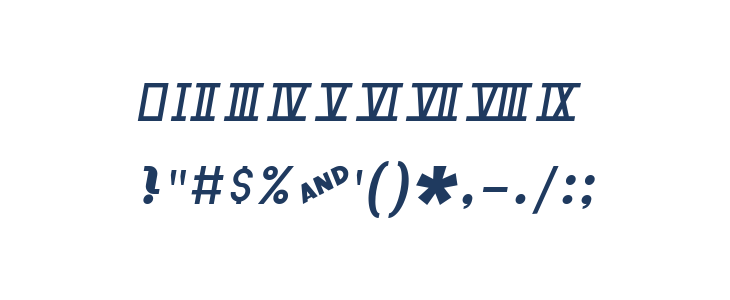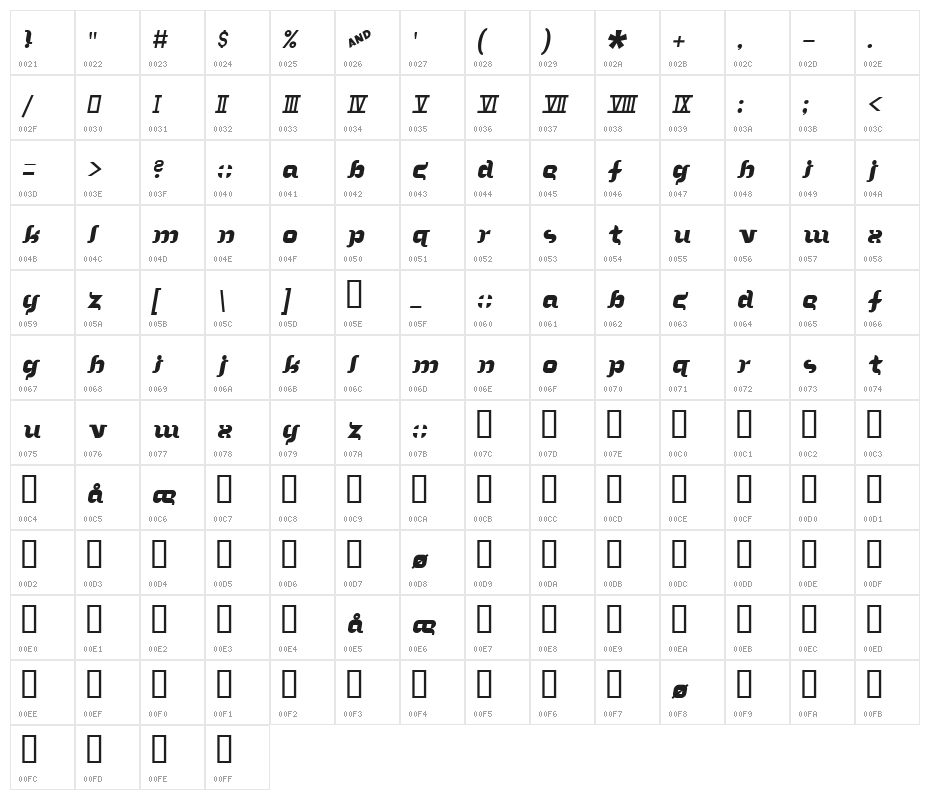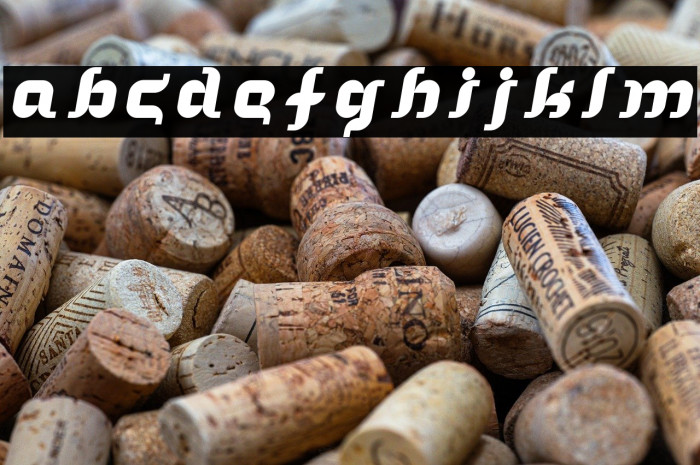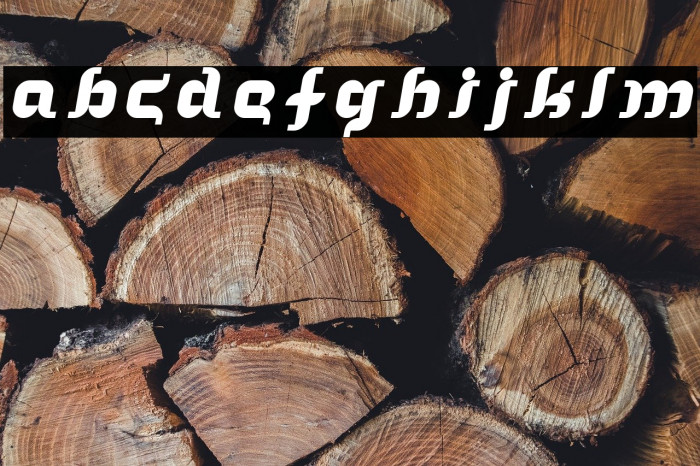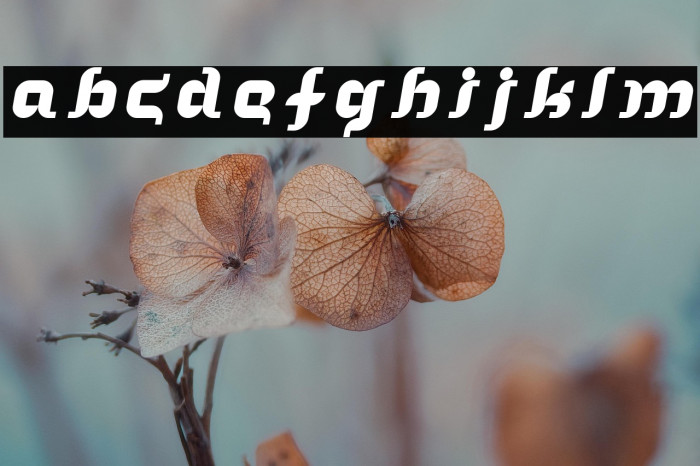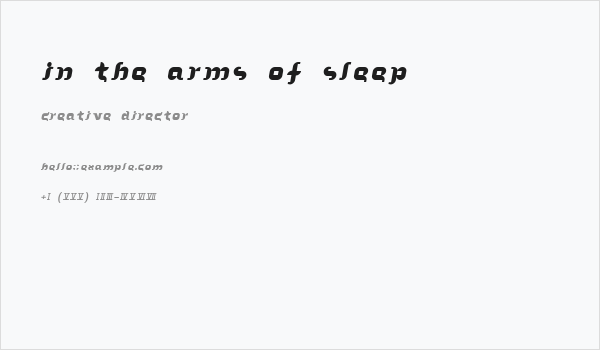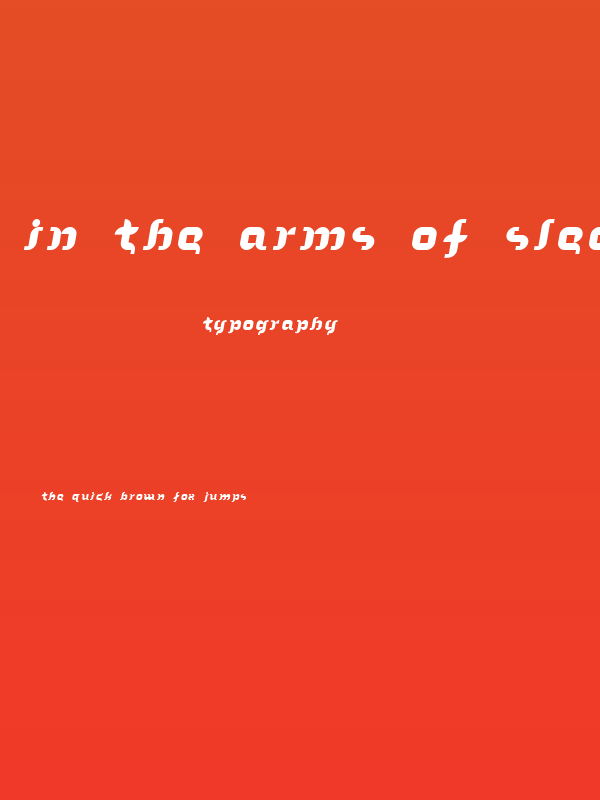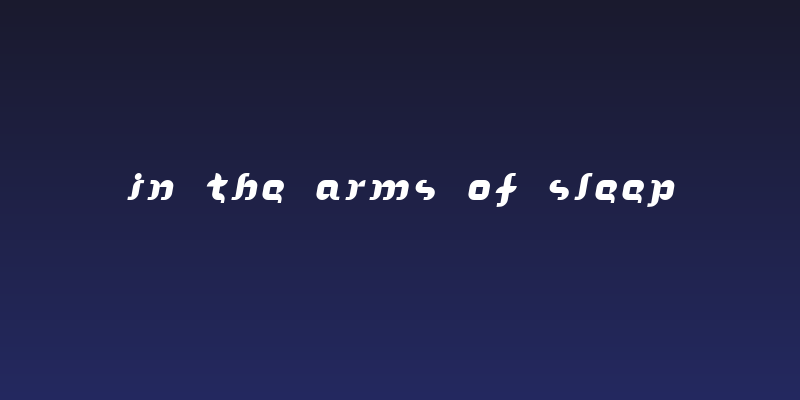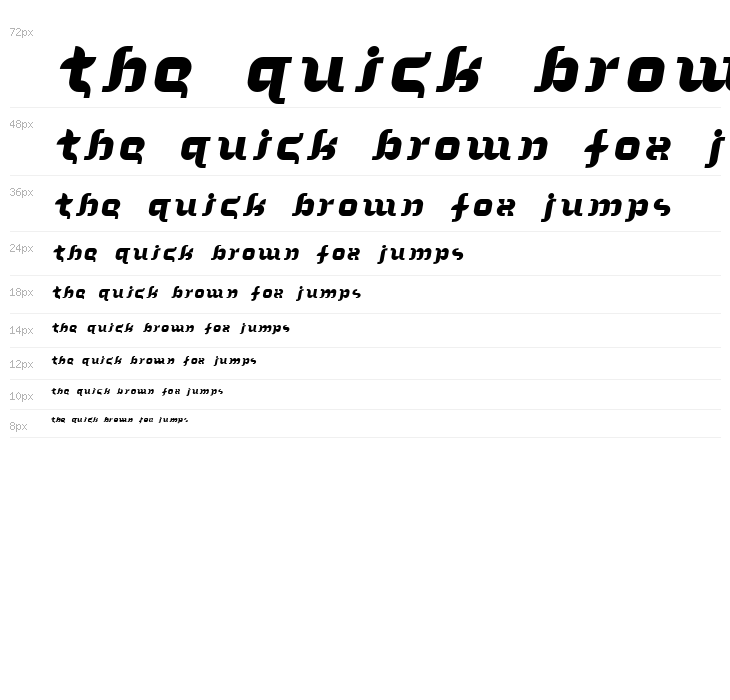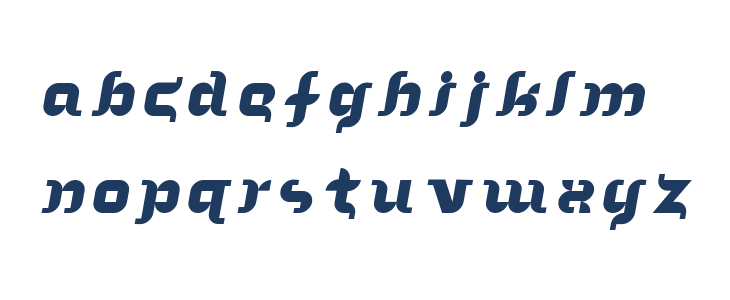
In the arms of sleep Font
In the arms of sleep Description
This font features a bold and dynamic style with a distinct slant, giving it a sense of movement and energy. The characters are uniquely designed with sharp angles and a modern flair, making it stand out in any design. The uppercase and lowercase letters maintain a consistent style, while the numerals and special characters complement the overall aesthetic. The font's boldness and angularity make it suitable for attention-grabbing headlines and impactful designs.